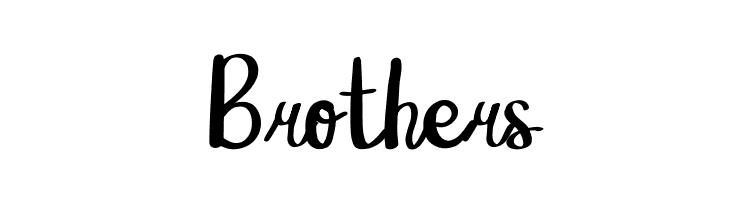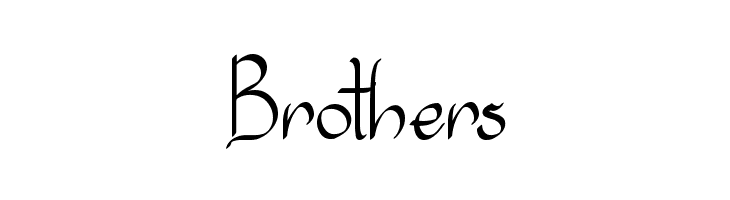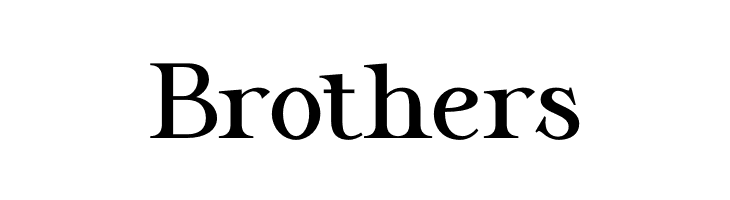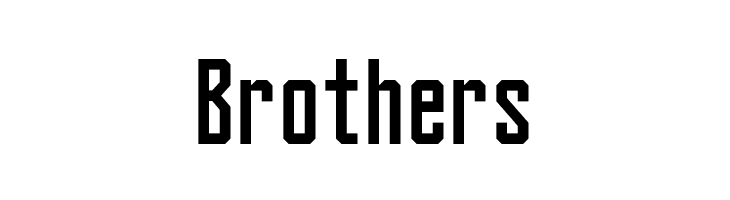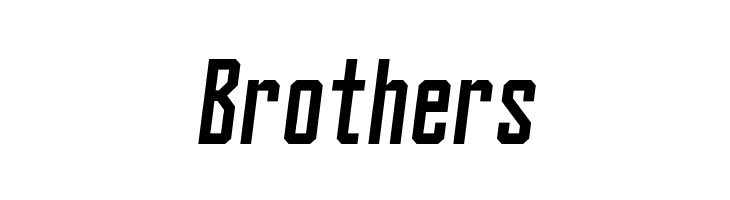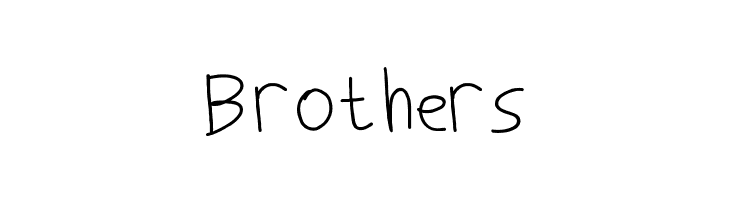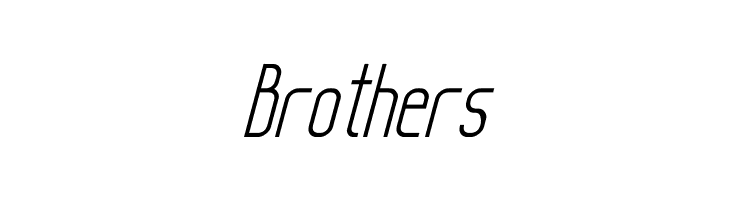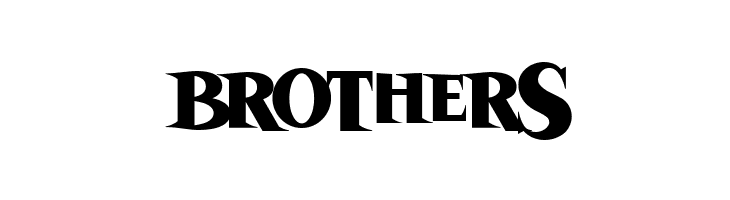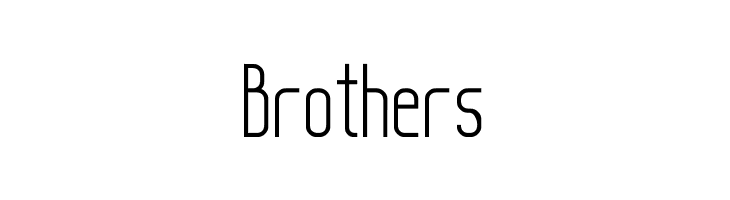
A bold blackletter font with sharp, angular lines and gothic influences.
A playful, casual handwritten font with smooth, rounded edges.
An elegant, flowing script font with graceful curves and artistic flair.
A fluid and elegant script font with connected cursive strokes.
A modern serif font with elegant, bold characters and sharp serifs.
A bold, playful handwritten font with energetic strokes.
A bold, dynamic handwritten font with playful, irregular strokes.
A bold, Gothic-inspired font with sharp serifs and dramatic styling.
A bold, pixelated font with a retro video game aesthetic.
A medieval-inspired font with elongated serifs and dramatic, angular forms.
A modern, geometric font with bold outlines and a dotted interior pattern.
A classic serif font with elegant curves and medium contrast.
A bold, modern font with thick, uniform strokes and a geometric style.
A bold, geometric font with an industrial and modern aesthetic.
A bold, italic font with a modern, geometric style and sharp angles.
A modern, clean sans-serif font with consistent stroke width and excellent readability.
A graceful and elegant script font with flowing, cursive letters.
Casual handwritten font with playful style.
A playful and elegant script font with a modern twist, perfect for creative projects.
A modern, geometric font with a tall, condensed structure and consistent stroke width.
A bold, high-contrast font with sharp serifs and dynamic character shapes.
A bold, angular serif font with a dramatic and modern twist.
A playful, handwritten font with dynamic and flowing strokes.
A modern, geometric typeface with a clean and professional look.
A modern, sans-serif font with clean lines and balanced spacing.